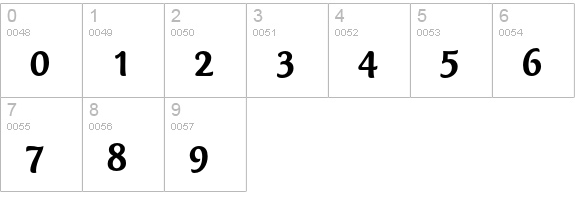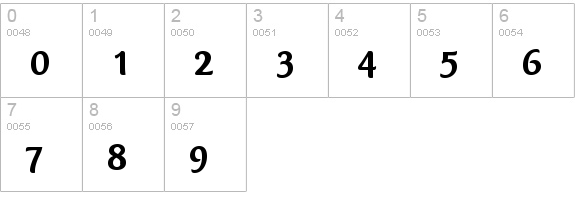
Club Type Mercurius Medium is a balanced, medium-weight variant in the Club typeface family \xE2\x80\x94 well suited to sub-headlines, navigation, and balanced editorial work.
Club Type Mercurius Medium font is a modern and stylish typeface that exudes a sense of sophistication and elegance. With its sleek lines and balanced proportions, this font is perfect for a wide range of design projects, from branding to editorial design. The versatility of Club Type Mercurius Medium font makes it a great choice for both print and digital applications. The best part? Club Type Mercurius Medium font is available for free download at FontsMarket.com. Whether you're a designer looking to add a touch of class to your projects or a business owner wanting to elevate your branding, this font is a fantastic choice. Don't miss out on the opportunity to enhance your designs with the timeless appeal of Club Type Mercurius Medium font. Download it today and start creating stunning visuals that will leave a lasting impression.